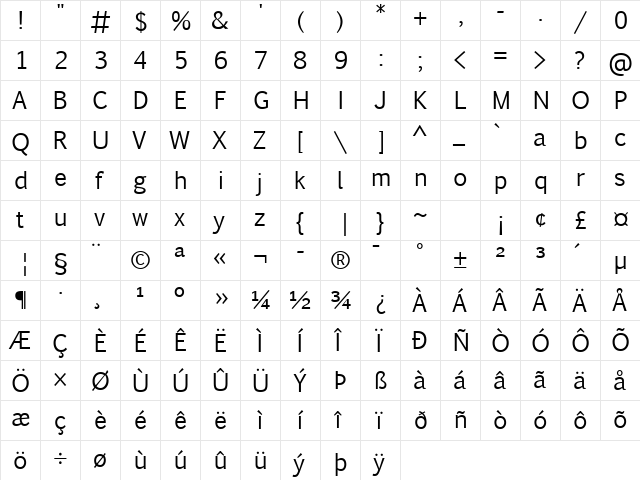
Euphemia Regular
| Foundry | Tiro Typeworks |
| Designer | Ross Mills |
Design Context for Euphemia Typeface
Euphemia offers clean, dependable letterforms without strong stylistic allegiance, making it a practical choice for designers who need flexibility.
Pro Tip: Use Euphemia in both headline and body roles to test its range before committing to a single application.